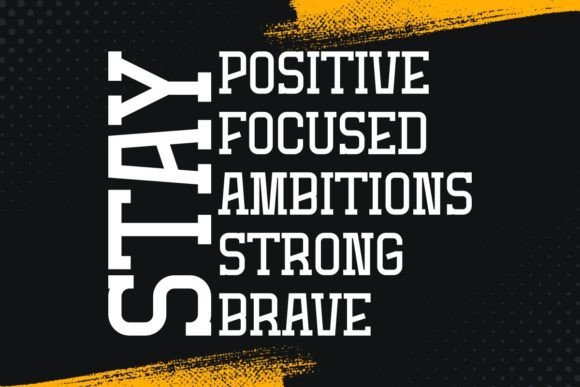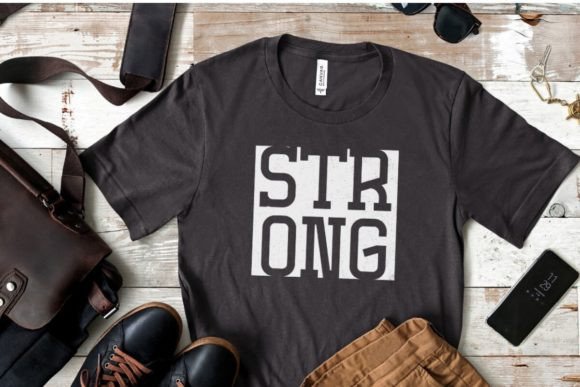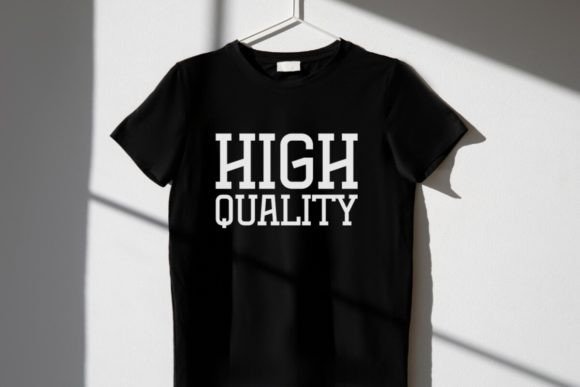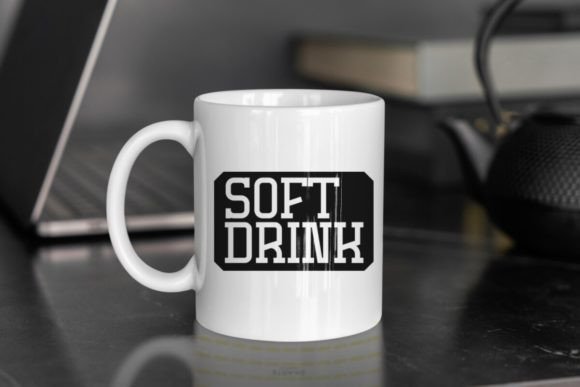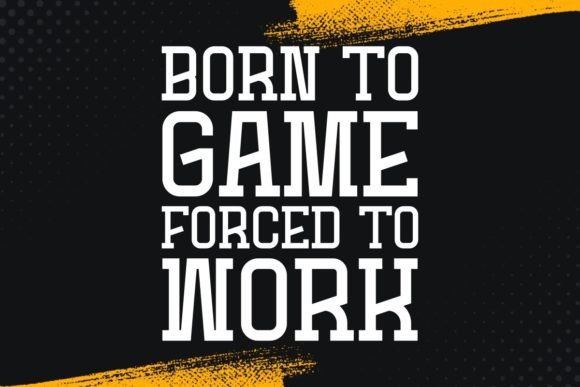
Introduction to High Slab Font
As a designer, you know the feeling of getting stuck in a creative rut. You’re brainstorming ideas for a new project, but nothing seems to be standing out. That’s when I stumbled upon the perfect solution – the High Slab Font. This elegant and condensed slab serif font is a game-changer, offering a clean, bold design that combines sophistication with strength.
What I love about High Slab Font is its versatility. Whether you’re working on a high-quality design for a t-shirt or a mug, this font is sure to make an impact. And the best part? It’s available for free download, making it an invaluable resource for designers of all levels.
Key Features of High Slab Font
- High-quality font designed for creative projects, ideal for use in graphic design, digital art, and typography.
- Unique, modern design with a clean and bold aesthetic, perfect for making a statement in creative projects.
Honest Review: High Slab Font
I recently stumbled upon the High Slab Font and I must say it’s been a game-changer for my design projects. The high quality of this font has elevated my creative work to a whole new level.
- ✨ Unique aesthetic: The High Slab Font has a distinct, modern feel that sets it apart from other fonts.
- ✨ Easy to use: The font is incredibly versatile and can be used for a wide range of creative projects, from logos to typography.
One thing to note is that the font may not be suitable for projects that require a transparent background, as the design can become slightly distorted when used with a see-through overlay.
Overall, I’m thoroughly impressed with the High Slab Font and I would highly recommend it to any designer looking for a high-quality, modern font to add to their design arsenal.
Tips for Getting the Most Out of High Slab Font
Experiment with different font sizes and styles to create a visually appealing design. Use High Slab Font in combination with other design elements to add depth and creativity to your project.
High Slab Font is perfect for use in logos, branding materials, and advertising campaigns. Its unique style and high-quality design make it an ideal choice for creative projects requiring a bold and eye-catching font.